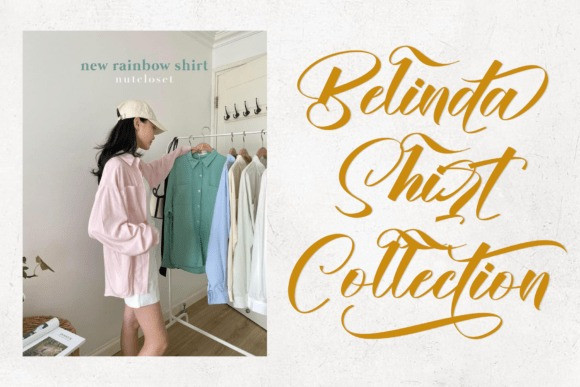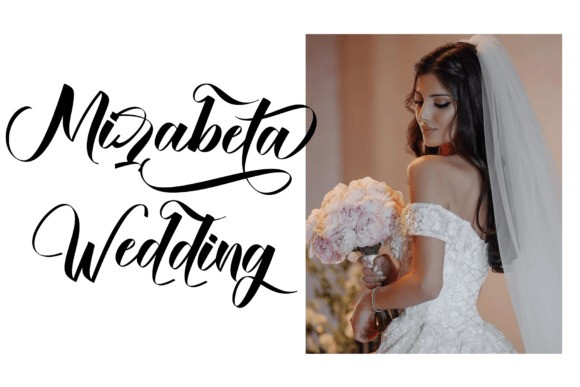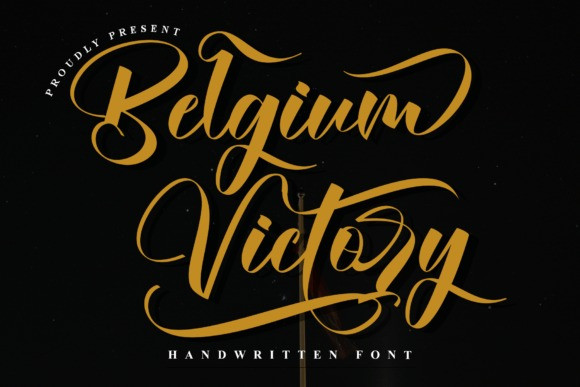
Belgium Victory Typeface is an elegant handwritten script font that seamlessly blends modern sophistication with romantic allure. Its fluid, sweeping strokes and nuanced line variation evoke the natural cadence of authentic handwriting. Graceful ascenders rise with confidence, while gently looped descenders add a delicate charm, creating a harmonious rhythm that feels both polished and organic.
Designed with versatility in mind, Belgium Victory is perfect for branding, wedding invitations, feminine logos, social media content, and luxurious product packaging. Each letterform exudes personality and warmth, bringing a personal, stylish touch to any design. The font’s refined elegance makes it an ideal choice for projects that aim to convey intimacy, beauty, and class.